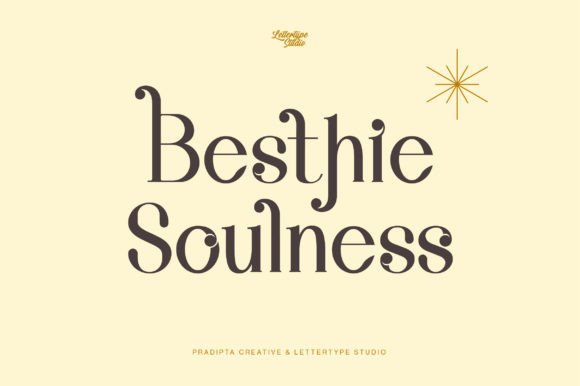
The Ultimate Guide to Besthie Soulness Font: Elevate Your Designs with Luxury and Sophistication
I’ll never forget the time I was working on a luxury branding project for a high-end fashion client. I had spent hours perfecting the logo design, but something was missing. The font I had chosen just didn’t have the level of sophistication and elegance that my client was looking for. That’s when I stumbled upon Besthie Soulness, a game-changing serif font that instantly elevated my design to new heights. In this article, I’ll share my experience with Besthie Soulness, its features, and how to make the most of this stunning font in your designs.
An Honest Review of Besthie Soulness
What I Love About Besthie Soulness
- ✨ Luxurious and Classic Feel: Besthie Soulness exudes a sense of luxury and sophistication, making it perfect for high-end branding, fashion, and beauty projects.
- ✅ Modern and Versatile: This font is not only classic but also modern and versatile, allowing you to use it for a wide range of applications, from logos and signage to posters and wedding invitations.
- 💫 Stylistic Sets Galore: Besthie Soulness comes with a ton of stylistic sets, giving you endless options to customize your text and make it truly unique.
While Besthie Soulness is an amazing font, there are a few things to keep in mind:
- 🤔 Glyph Overload: With so many stylistic sets and glyphs available, it can be overwhelming to navigate and find the perfect combination for your design.
The Story Behind Besthie Soulness
Besthie Soulness was designed with the goal of creating a luxurious and modern serif font that would cater to the needs of designers and crafters. The font’s creator drew inspiration from classic serif fonts, while infusing it with a modern twist to make it versatile and stylish.
| What is Besthie Soulness font best used for? | Besthie Soulness is perfect for luxury branding, fashion, beauty, and high-end projects, such as logos, signage, posters, wedding invitations, and cosmetics. |